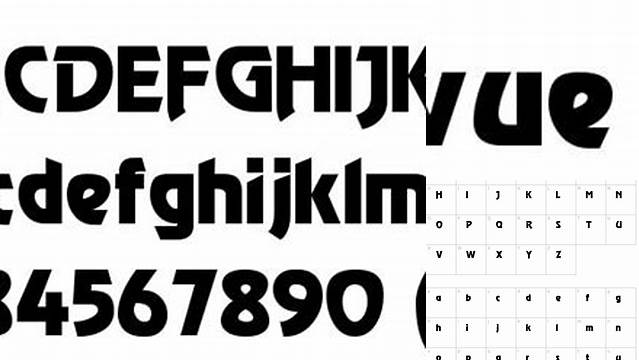
Revue Cyrillic Font: A Closer Look
Alright guys, before we jump into the nitty-gritty of the Revue Cyrillic font free download, let's take a moment to appreciate this beauty. Revue is a modern and stylish font that effortlessly blends elegance with readability. Designed with a touch of sophistication, it's perfect for a wide range of projects, from website headings and branding materials to print designs and social media graphics. The Cyrillic version of Revue extends its versatility, allowing you to communicate effectively in languages that use the Cyrillic alphabet, such as Russian, Serbian, Ukrainian, and more. What makes Revue stand out? Its clean lines, balanced letterforms, and a touch of flair that adds a unique personality to your text. The font's designer carefully crafted each character to ensure a harmonious visual experience. It's not just a font; it's a statement. Imagine the impact of using Revue for your next project. It can elevate your brand, capture attention, and leave a lasting impression on your audience. The Cyrillic characters are designed to integrate seamlessly with the Latin characters, maintaining the font's overall aesthetic consistency. This means you can mix and match languages without compromising the visual integrity of your design. Whether you're designing a website for a Russian-speaking audience or creating marketing materials for a global campaign, Revue Cyrillic is up to the task. Furthermore, the font family usually includes various weights and styles, giving you even more creative flexibility. You can choose from light, regular, bold, and sometimes even italic versions, each with its own distinct character. This allows you to tailor your typography to the specific needs of your project, creating a visual hierarchy that guides the reader's eye and emphasizes key information. So, whether you need a subtle, elegant look or a bold, eye-catching headline, Revue has you covered. The versatility of the font also extends to different design contexts. It works equally well in digital and print environments, making it a reliable choice for all your creative endeavors. So, if you're ready to take your designs to the next level, the Revue Cyrillic font free download is definitely something to consider. Get ready to transform your projects with this amazing typeface!
Understanding the Design and Features of Revue Cyrillic Font
When we talk about the Revue Cyrillic font free download, it's essential to delve into its core design and features. This font is more than just a collection of characters; it's a carefully crafted artistic expression designed to meet various design needs. The design of Revue Cyrillic is characterized by its modern and clean aesthetic. The letterforms are meticulously drawn, offering a balance of elegance and readability. The Cyrillic characters seamlessly integrate with the Latin characters, ensuring a cohesive visual experience across different languages. This feature is particularly valuable for multilingual projects. Revue's designer paid close attention to the details, such as the curves, the proportions, and the spacing between the letters. This attention to detail ensures that the font looks great in any size and application. It's designed to be versatile. The font often includes various weights and styles. These may range from light to bold, and they might include italic versions, allowing you to customize your typography to fit the specific needs of your project. This versatility is a crucial aspect of Revue, offering a wide range of creative possibilities. One of the standout features of Revue is its readability. The clean lines and open counters (the spaces within letters) make it easy to read, even at smaller sizes. This is crucial for both print and digital applications. The font's design makes it user-friendly, ensuring your message is delivered clearly. The font's design is also aesthetically pleasing. The font’s contemporary style makes it well-suited for modern design projects. The clean and elegant look of Revue makes it ideal for a variety of applications, from website headings to print designs. The font isn't just about aesthetics; it also takes into consideration the technical aspects of typography. The font files are usually well-engineered, ensuring that they work seamlessly across different operating systems and design software. The designers have taken into account the various software and platforms users might use. This ensures that the font will perform well and maintain its visual integrity. Finally, Revue often includes a comprehensive character set. This will include all the necessary Cyrillic characters, including all the letters, numbers, punctuation marks, and special symbols. This ensures that you can use the font in any language that uses the Cyrillic alphabet. So, when you consider the Revue Cyrillic font free download, remember it's a complete package of design excellence, versatility, and user-friendliness. It’s designed to help your creative visions come to life.
The Best Uses for the Revue Cyrillic Font
Alright, let's talk about the fun stuff: where can you actually use the Revue Cyrillic font free download to create some serious visual magic? This font is a versatile tool, perfect for a wide range of design projects. One of the best uses for Revue Cyrillic is in branding. Imagine creating a brand identity that is both modern and memorable. Revue's clean lines and elegant style make it perfect for logos, business cards, and other branding materials. The Cyrillic characters add an extra layer of sophistication, especially if you're targeting an audience that speaks a Cyrillic language. Think of the impact: your brand can stand out. Revue Cyrillic also shines in web design. Use it for website headings, body text, or even for navigation menus. The readability of the font ensures that your content is easily accessible, while its stylish look adds a touch of class to your website. Whether you're designing a blog, a portfolio site, or an e-commerce store, Revue can elevate your design. Also, the font is a great choice for print design. Think brochures, posters, flyers, and other printed materials. Its clear, crisp appearance makes it ideal for both headlines and body text. The Cyrillic characters can be used to create visually stunning layouts in any Cyrillic-speaking market. The font's versatility ensures it adapts beautifully to any print project. Social media graphics are another fantastic application. In today's world, social media is essential for marketing. Revue Cyrillic helps you create eye-catching posts, stories, and ads that grab attention. Use it for quotes, announcements, or any text-based content you want to share. The font’s design makes it perfect for the visual-driven world of social media. Furthermore, Revue can be used in various creative projects. Consider using the font in book covers, album art, or even in crafting personalized gifts. It's a great choice for anything you want to add a touch of elegance and sophistication to. For projects where multilingual support is needed, Revue Cyrillic offers a unique advantage. The font's Cyrillic characters are designed to blend seamlessly with its Latin characters, providing you with a cohesive design solution for both languages. This is particularly beneficial for businesses and creators who work with international audiences. Whether it's creating a website that caters to both English and Russian speakers, or developing a marketing campaign that transcends linguistic boundaries, Revue Cyrillic is a great choice. Its adaptability and elegant design make it a valuable tool for any designer or creative professional. The Revue Cyrillic font free download allows you to unleash your creativity.